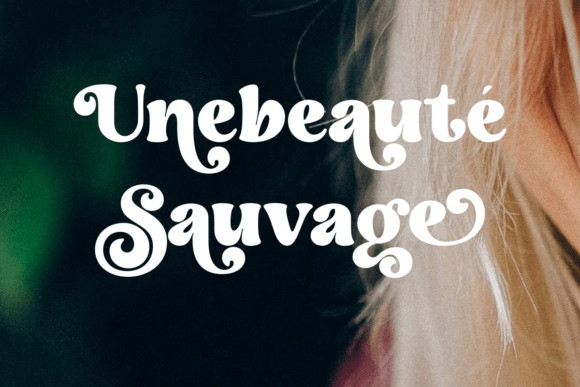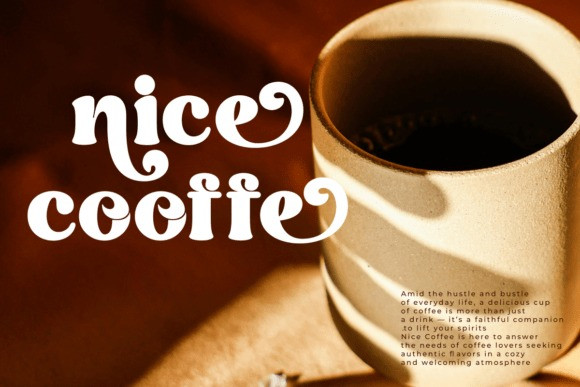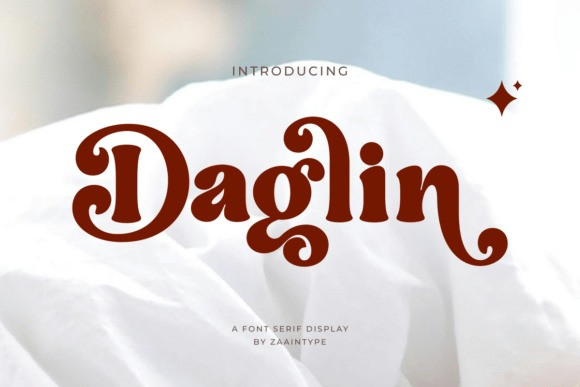
Daglin Display Font
Daglin Display Font is a bold serif font with a strong and elegant character, available in two styles: Regular and Oblique. Perfect for luxury branding, editorials, and designs that need a bold yet sophisticated touch